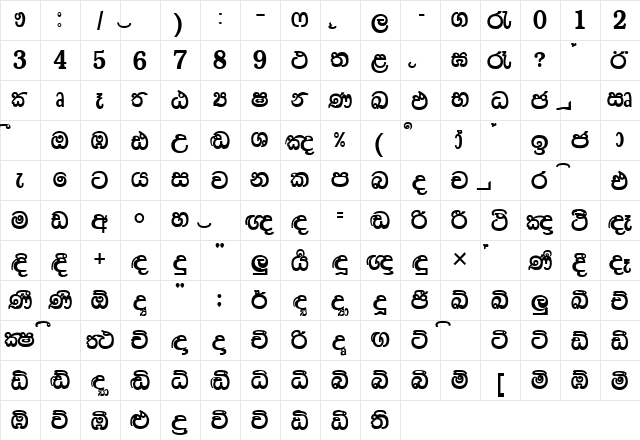
Radhika-PC Normal
Design Context for Radhika-PC Typeface
Radhika-PC takes a measured approach to typography — its balanced proportions and neutral character make it a reliable workhorse for both digital and print work.